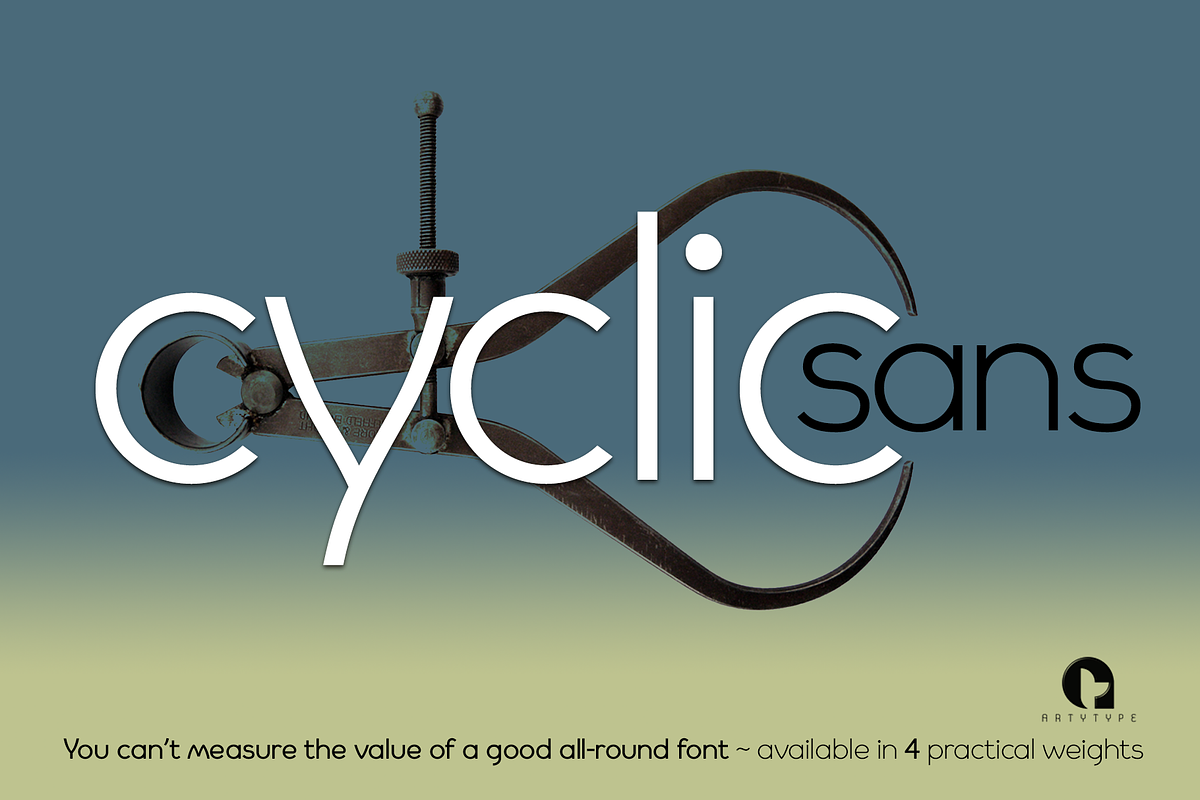
Cyclic Sans Font Free Download is a sleek, modern sans-serif typeface known for its geometric balance and clean, minimalist lines. Designed with versatility in mind, Cyclic Sans is perfect for branding, web design, editorial layouts, packaging, and tech-focused applications that require clarity and a polished professional feel.
Cyclic Sans Font Free Download delivers excellent legibility and style across both display and body text. Whether you're designing sleek interfaces, modern business identities, or clean printed materials, this font offers a refined and contemporary edge. Download it today and let Cyclic Sans bring structured elegance to your next design project.